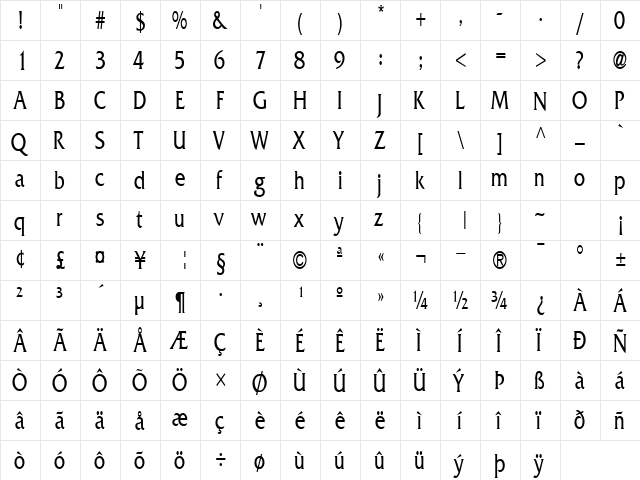
AllianceCondensed Regular Font Preview
AllianceCondensed Regular
AllianceCondensed Regular Font Details
Design Context for AllianceCondensed Typeface
AllianceCondensed takes a measured approach to typography — its balanced proportions and neutral character make it a reliable workhorse for both digital and print work. The condensed width makes it efficient for tight spaces without sacrificing legibility.